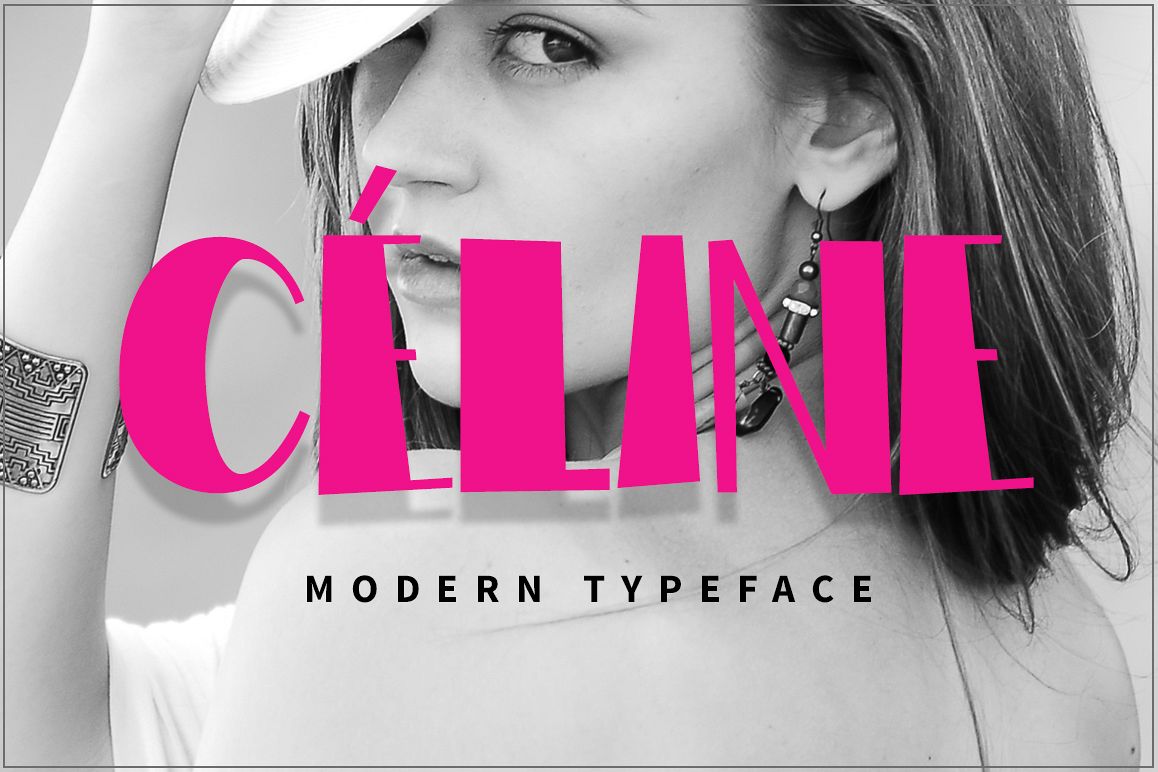
Celine Modern Typeface
Celine - modern typeface! Font for your creative projects!
This script is perfect for cards, prints, logos, invitations, arrange illustration and decoration. Good for fashion and header. It has upper and lower case letters, numbers, special characters, accents.You will receive the fonts: